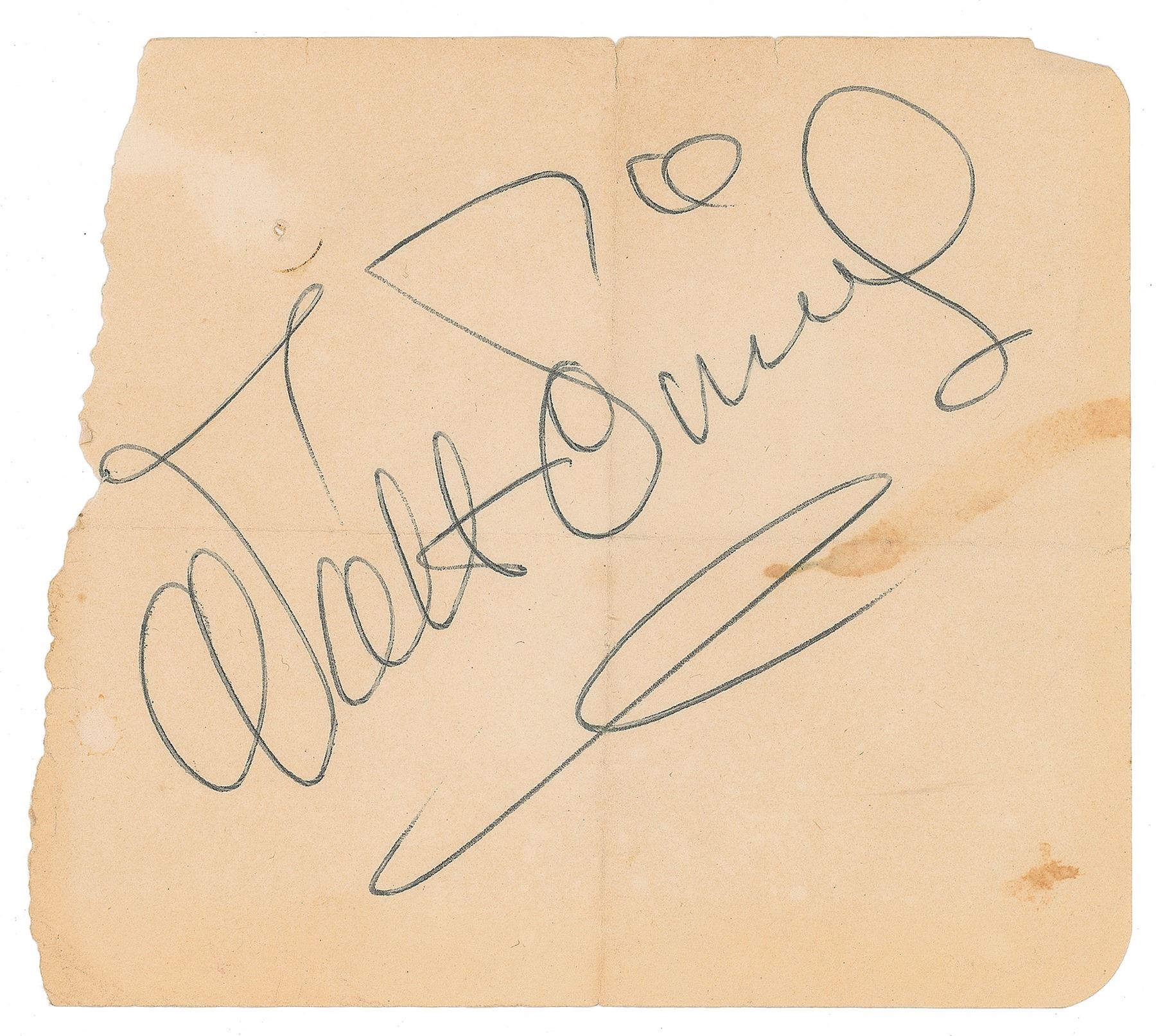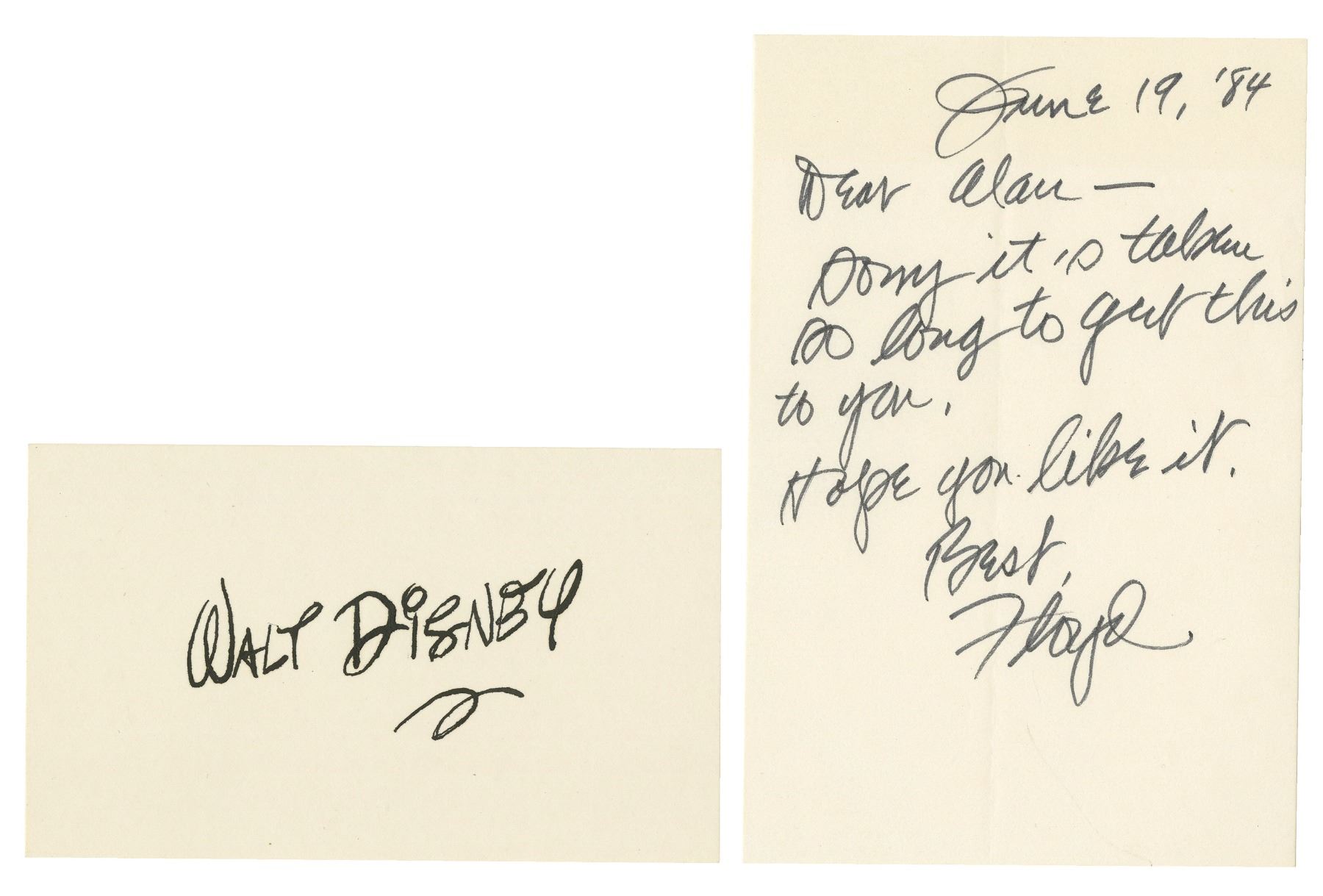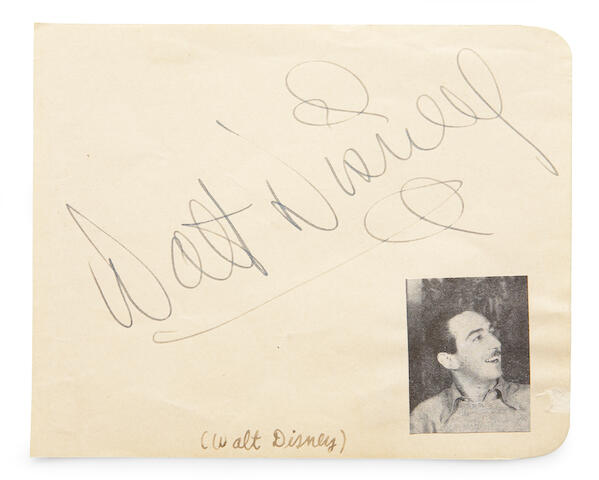
Font Walt Disney Signature
Feb 3, 13 A free Walt Disney font can be useful to inspire nostalgic feelings with words Modeled after the signature of the creator of Mickey Mouse, the font is very.
Font walt disney signature. The Walt Disney Script is a graceful, elegant font that is very befitting of the overall Disney brand image This instantly recognisable font has a unique appearance that looks magical and playful Its design was based on a stylised version of Walt Disney’s autograph. Making the web more beautiful, fast, and open through great typography. Brand New Evermore Orlando Resort Will Open Near Disney World in 23 14 hours ago A Complete List of How EVERY Single Disney World Attraction is Distancing Right Now 14 hours ago The Rise of Disney's Trackless Ride Systems 14 hours ago Attention Runners!.
Disney Font Generator The lettering of the Walt Disney logotype is very similar to a font called Waltograph, which is a freeforpersonaluse typeface designed by Justin Callaghan Waltograph includes two variations Waltograph 42, a regular font with uppercase and lowercase letters plus a few ligatures and alternates, and Waltograph UI, a unicase font intended for. OnlineWebFontsCOM is Internet most popular font online download website,offers more than 8,000,000 desktop and Web font products for you to preview and download. OnlineWebFontsCOM is Internet most popular font online download website,offers more than 8,000,000 desktop and Web font products for you to preview and download.
The font based on the 06present Walt Disney Pictures logo is New Waltograph, which is designed by Dan P Lyons The redesign font is released in 15 The variant of the font is (New) Waltograph UI Reception Although the project is unofficial and not affiliated with nor endorsed by the Walt Disney Company, it has been used by the company. Walt Disney Logo PNG Walt Disney Pictures Company is one of the world’s top entertainment and information providers It was founded by Walter Elias Disney, an animator, film producer, entrepreneur, a Article by 1000logos 17 Walt Disney Logo Walt Disney Signature Disney Word Disney Hotels Time Warner Baby Drawing Only Play Great Logos. Search results for DISNEY font, free downloads of DISNEY fonts at Fonts101com Toggle navigation Fonts101com Font Styles Latest Fonts;.
Waltograph is the name of a freeware typeface based on the lettering of the Walt Disney logotype What is logo The Walt Disney Company font The Walt Disney Company Logo The Walt Disney Company Font Search and find FONTS used by World Brands in their logo Create your logo design based on best fonts, by using our easy to use logo and font tool, logo, font, logo font, font logo. The Walt Disney Script font contains 2 beautifully designed characters ️ Customize your own preview on FFontsnet to make sure it`s the right one for your designs. Recent Walt Disney World 9 hours ago Disney Surveying Guests About Health and Safety Measures at Disney Springs 13 hours ago NEWS!.
Waltograph is based on the original font of the Walt Disney logo, the design standard that started it all This font has the wide and wild loops of its predecessor and the smooth curves that have made it stand different among the rest. Walt's writing style varied depending on the decade and context;. Page boldly signed “Walt Disney” in fountain pen ink and datelined “Oxford, England, June 16 1935” Mickey Mouse sketched in classic profile a mere seven years after the character’s 1928 “Steamboat Willie” debut and while Disney himself still voiced the famed Mouse;.
The words "WALT DISNEY" in it's familiar signature font in white is seen, and the words "Television Animation" in red and in the same font as the words "Produced by" FX/SFX The words "Produced by" zooming in, and the cross fade into the Walt Disney castle. The Disney script font is basically based on Walt Disney's signature The castle seen in this logo was actually first used by Disneyland in 1985 to promote the theme park's 30th anniversary. UrbanFonts features an amazing collection of free fonts, premium fonts and free dingbats With over 8,000 freeware fonts, you've come to the best place to download fonts!.
Most fonts on this site are freeware, some are shareware or linkware. His everyday handwriting was fairly unremarkable, and his regular signature only hinted at the company logo But his personal. Submit a font Tools 71 matching requests on the forum Waltograph Custom preview Size Waltograph à € by Justin Callaghan in Script > Various 10,011,336 downloads (2,398 yesterday) 108 comments Free for personal use 2 font files Download Donate to author.
Download 10 Disney Fonts 1001 Free Fonts offers the best selection of Disney Fonts for Windows and Macintosh. That’s right, it’s Walt Disney What’s more, that curvy, loopy signature has something that’s priceless global recognition Everyone knows the name “Disney,” especially in its form as the logo of The Walt Disney Company—and of course the distinctive script is a stylized version of Walt’s actual signature. Mickey Ears Font The rounded black ears of mickey mouse is a signature symbol of Disney, more so that kids and adults alike can be seen toting the ears or Mickey and Minnie This font is largely pictorial, and each alphabet is encased in the black outline of Mickey’s ears.